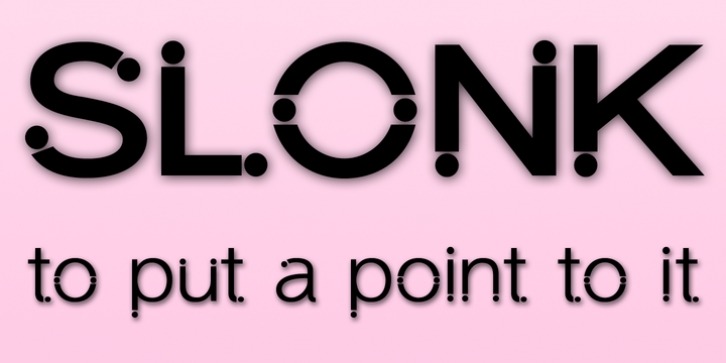
Slonk is a distinctive ornamental font, a sans serif face with circular dots at strategic points within the characters. It has 4 weights: Regular, Bold, Heavy and Fat, with italics, and all the OpenType features you'd expect such as Class Kerning, Ligatures and Stylistic Alternates (to get character variations or numbers without the dots, for instance) and Ornaments - full details in the zip.